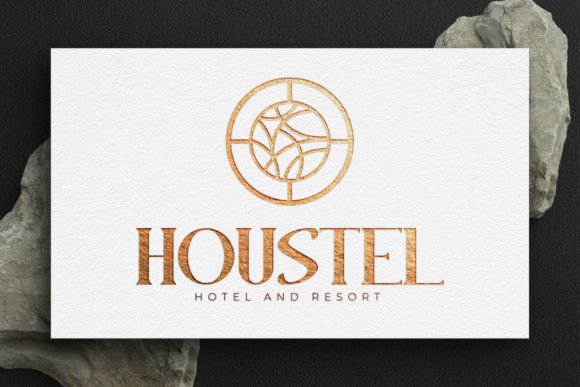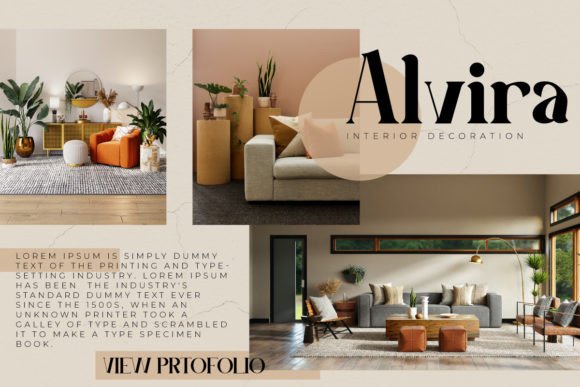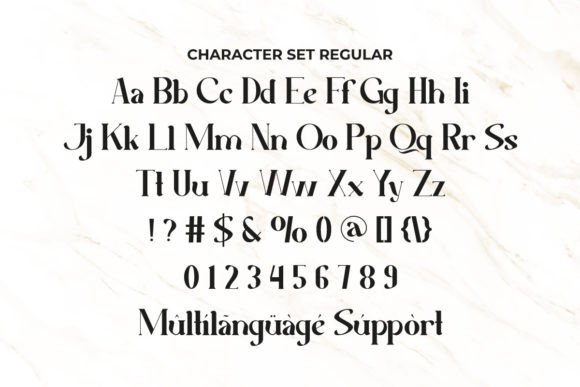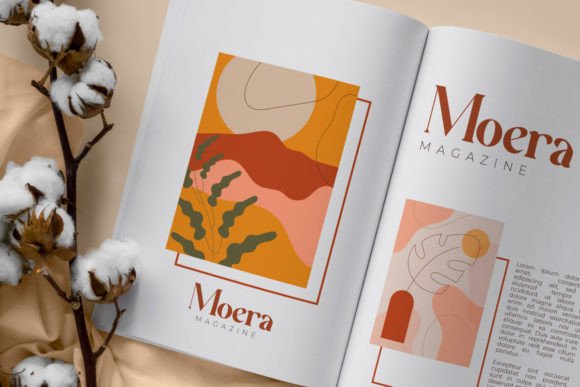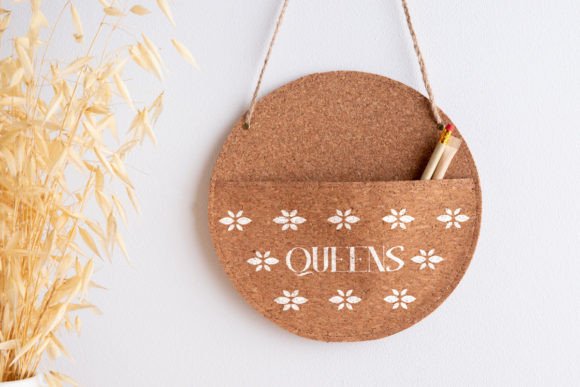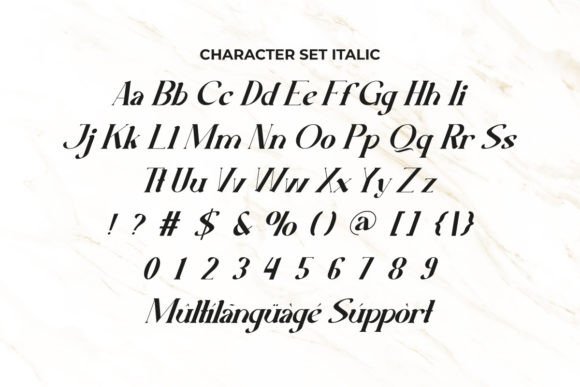
Introduction to Goldy Ryder Font
As a designer, have you ever been in the midst of a creative project, searching for the perfect font to elevate your design and make it truly stand out? You know, that moment when everything seems to be falling into place, but that one element is just missing the wow factor? For me, that moment came when I stumbled upon the stunning Goldy Ryder Font.
This sophisticated, charming serif font with a fashionable touch is more than just a design element – it’s a game-changer. With its high quality and elegant style, the Goldy Ryder Font is perfectly suited for creating modern, chic designs that exude luxury and sophistication. Whether you’re working on a creative project with a transparent background or looking for a design resource to add a touch of elegance, the Goldy Ryder Font is an invaluable asset to have in your design arsenal.
Key Features of Goldy Ryder Font
- High-quality design ideal for creative projects, including digital art, graphics, and illustrations.
- Transparent background, allowing for seamless integration with various design elements.
- Each font file includes multiple styles and weights, providing flexibility for a range of design applications.
- Designed with a modern aesthetic, making it suitable for contemporary creative projects and designs.
Honest Review: Goldy Ryder Font
I recently stumbled upon the Goldy Ryder Font while searching for a high-quality design resource for a creative project. Initially, I was drawn to its unique and elegant appearance, which I thought would be perfect for a futuristic theme.
- ✨ Unique and elegant appearance, ideal for creative projects that require a touch of sophistication.
- ⚠️ Limited font sizes and styles, which might restrict its use in complex design projects.
- ⚠️ Not suitable for projects requiring a lot of text, as the font’s legibility might be compromised at smaller sizes.
Overall, I was impressed with the Goldy Ryder Font’s design and versatility. While it may have some limitations, it’s a great addition to any designer’s resource library. With a bit of creativity, you can achieve some amazing results using this font.
To get the most out of the Goldy Ryder Font, try using it in combination with other design elements, such as images and graphics. Experiment with different font sizes and colors to create a unique look.
The Goldy Ryder Font is perfect for a variety of creative projects, including logos, brochures, and social media graphics. Its high-quality design and transparent background make it easy to use in a range of applications.
Alternatives to Goldy Ryder Font
The Great Vibes Font is a high-quality, elegant script font that’s perfect for creative projects requiring a touch of sophistication. It features a transparent background, making it ideal for use on images or videos with a subtle, understated look.
When to use: Wedding invitations, fashion designs, or any project that needs a luxurious feel. The Great Vibes Font is a great alternative to Goldy Ryder Font when you need a more refined, high-end look.
Comparison: While Goldy Ryder Font has a more playful, handwritten feel, the Great Vibes Font is more elegant and sophisticated. Great Vibes Font is a better choice when you need a more polished, high-quality design resource.
The Alex Brush Font is a beautiful, handwritten script font that’s perfect for creative projects requiring a personal touch. It features a transparent background and a free download option, making it an excellent design resource for designers on a budget.
Yes, the Goldy Ryder Font has a transparent background, making it easy to use in a variety of design situations. This feature allows you to customize the font to fit your design needs, whether you’re working on a logo, branding project, or other creative endeavor.